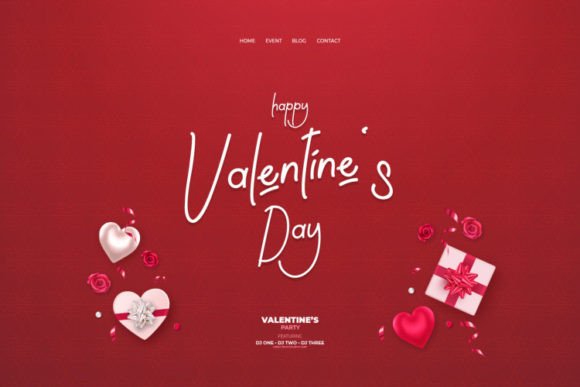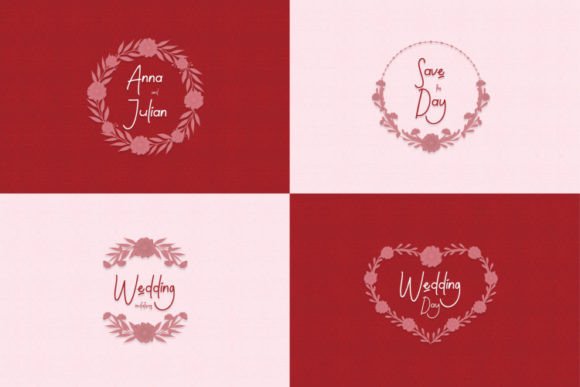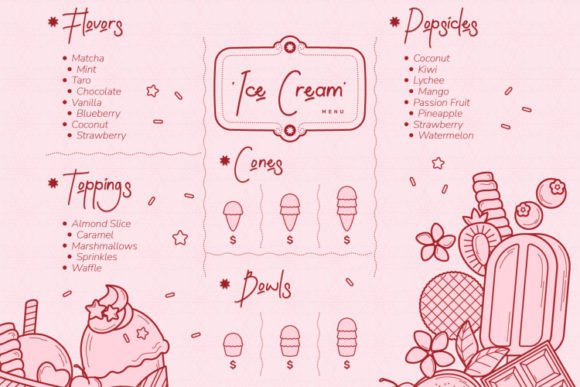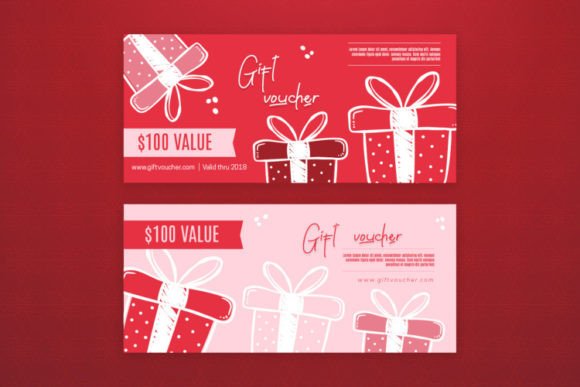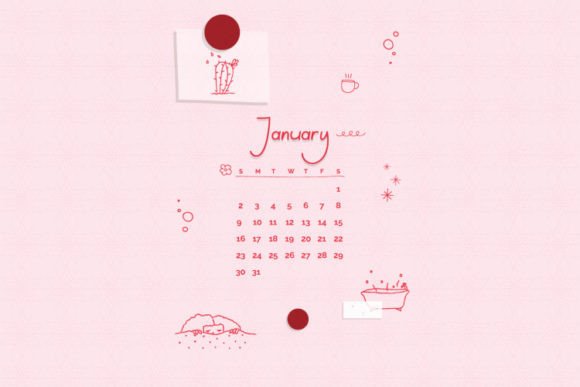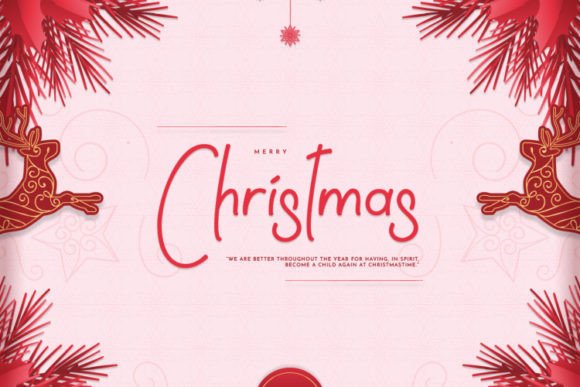
Introduction to Roullette Font
Roullette is a stylish and delicate script font.
It has a clean, thin, and smooth vibe and it will be a hit for any design that you want to add it to .